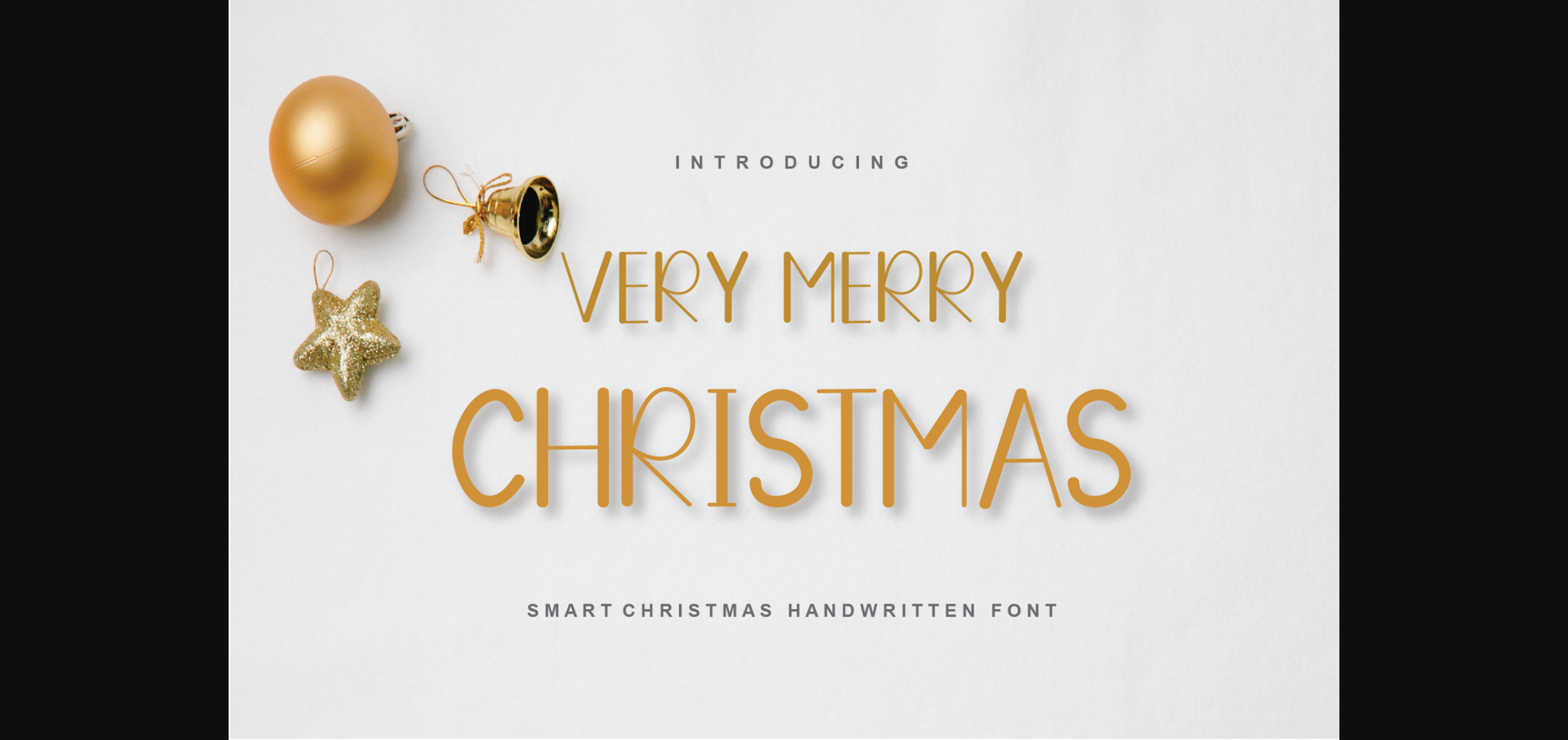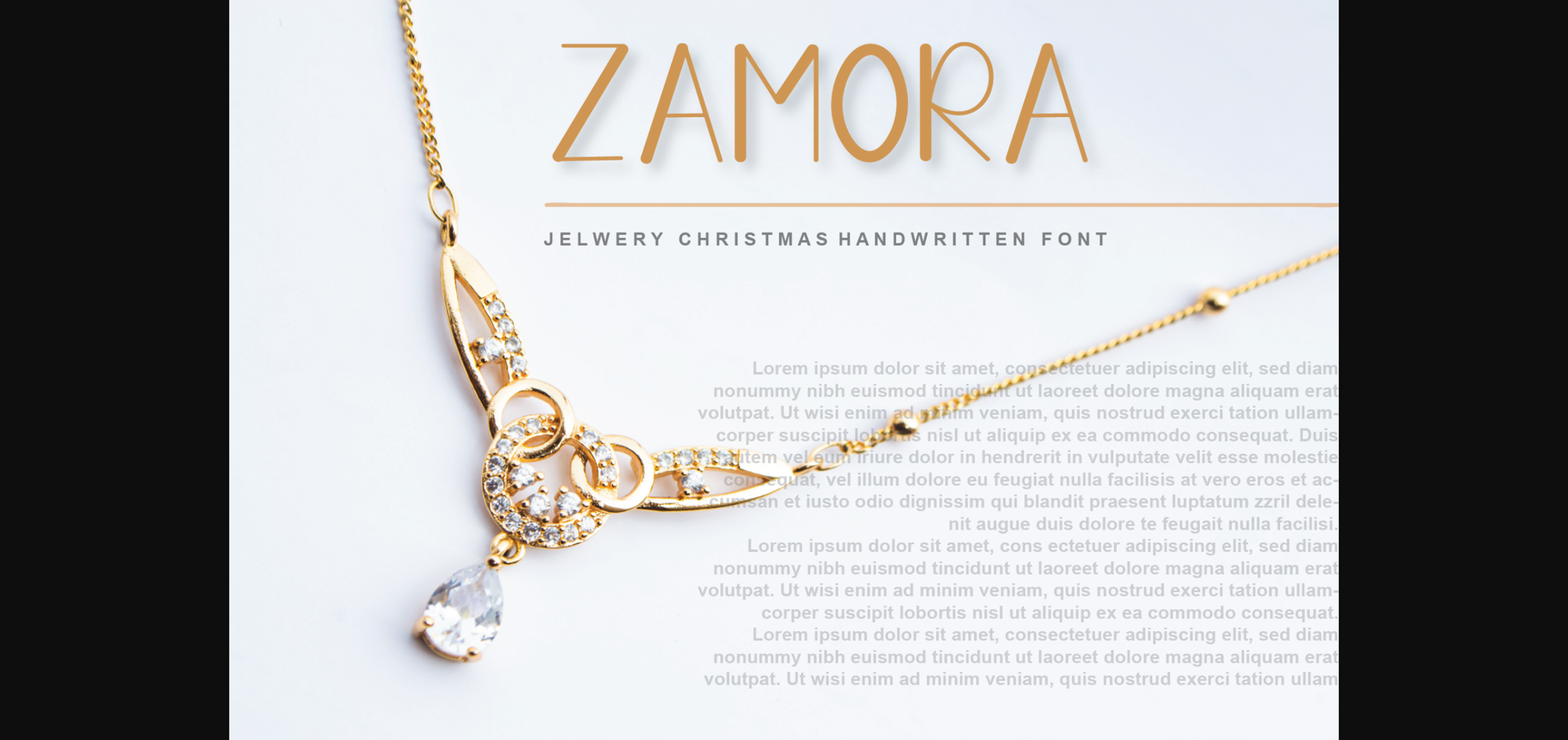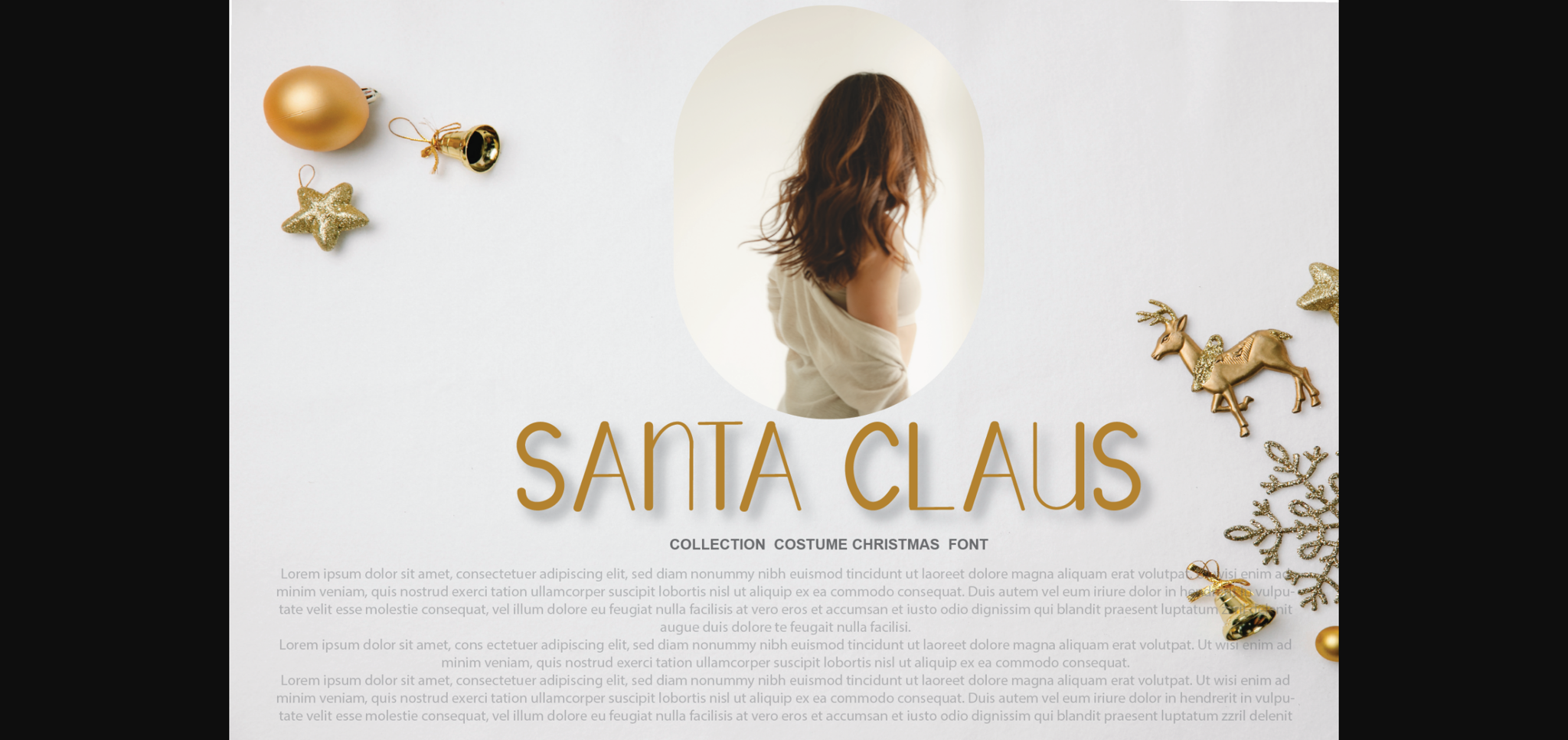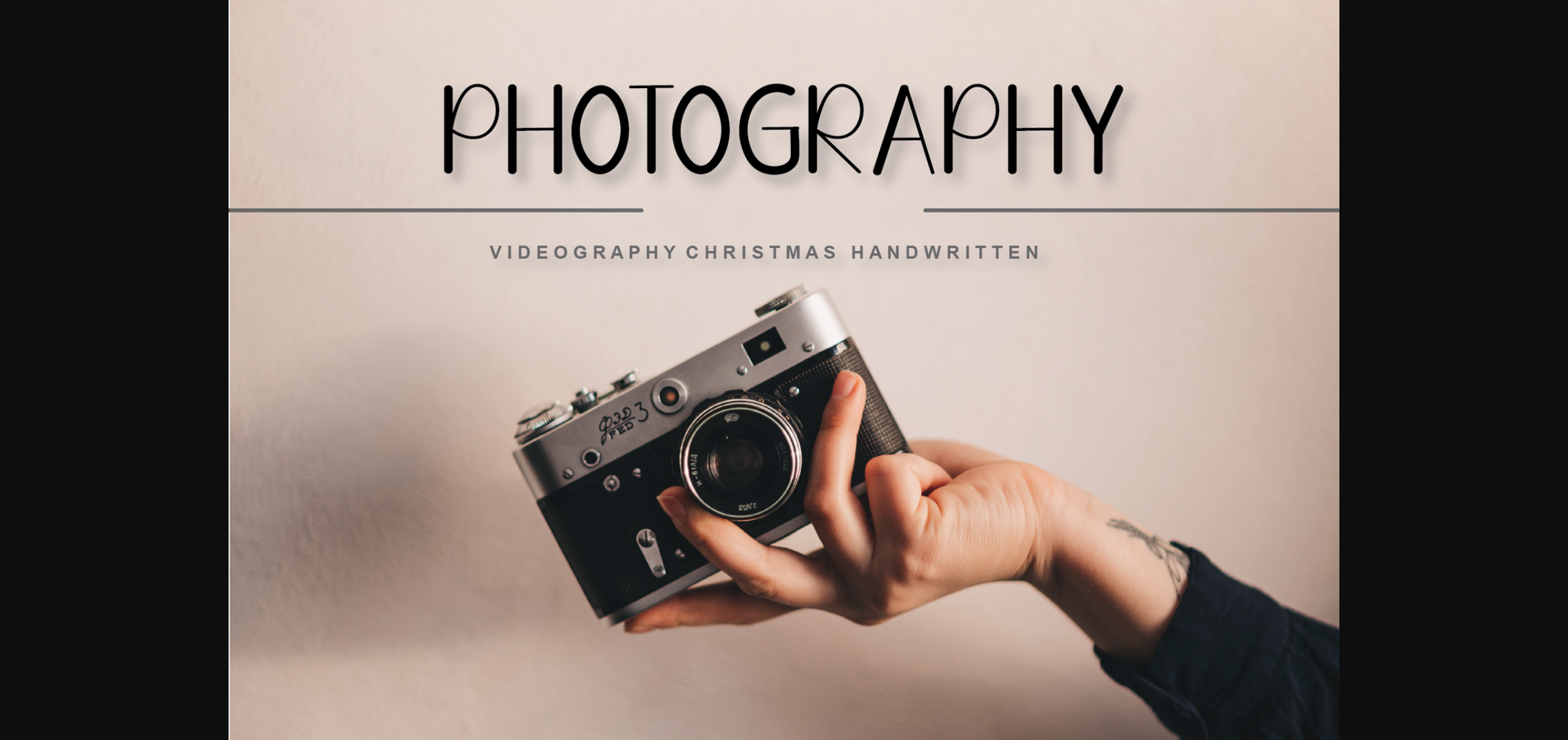
Very Merry Christmas Font
About Very Merry Christmas Font
Very Merry Christmas is a simple sans-serif font with a modern feel. Looks great on greeting cards, business cards, logos, product packaging, advertisements, quotes, and any other design you need!